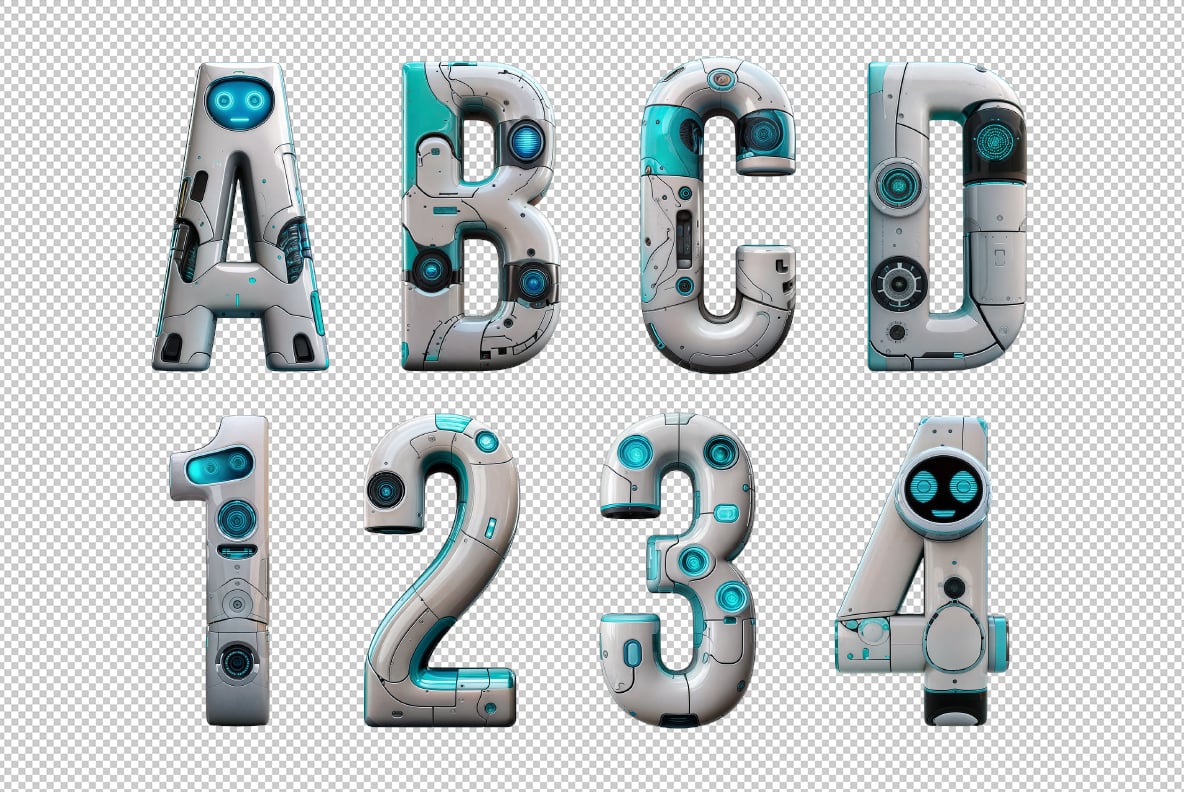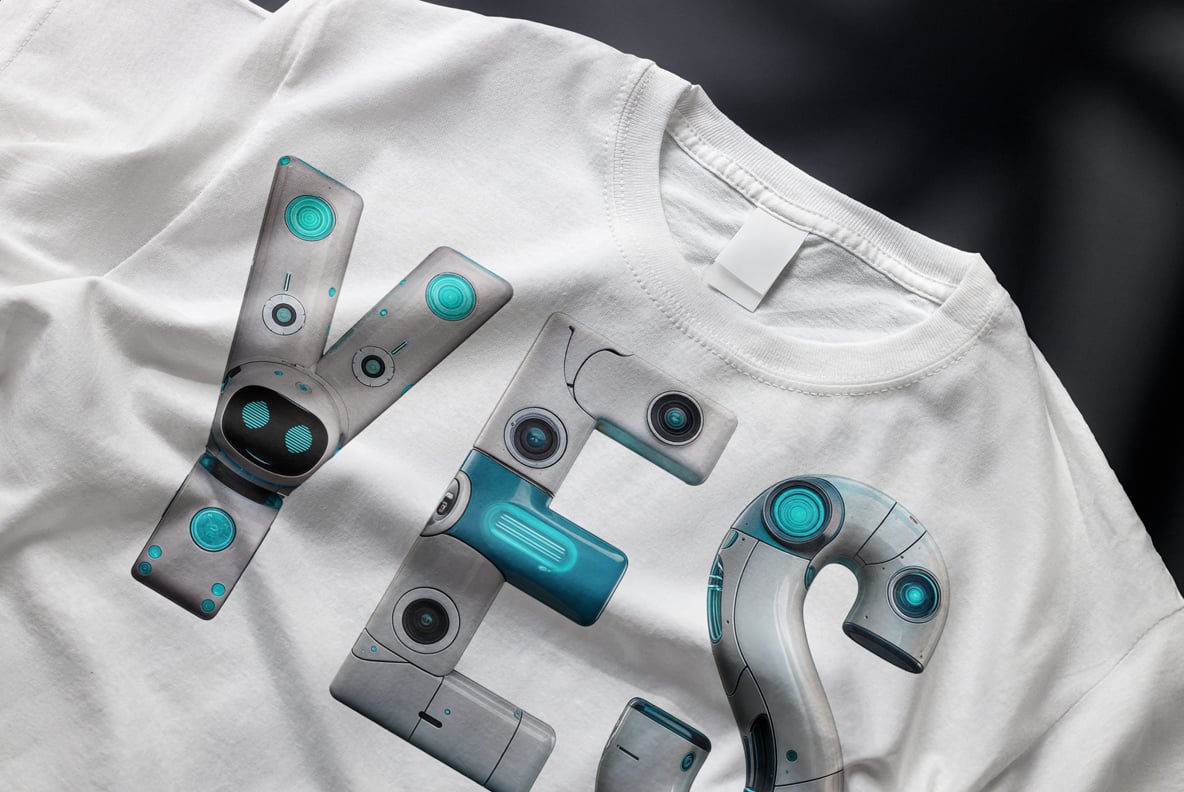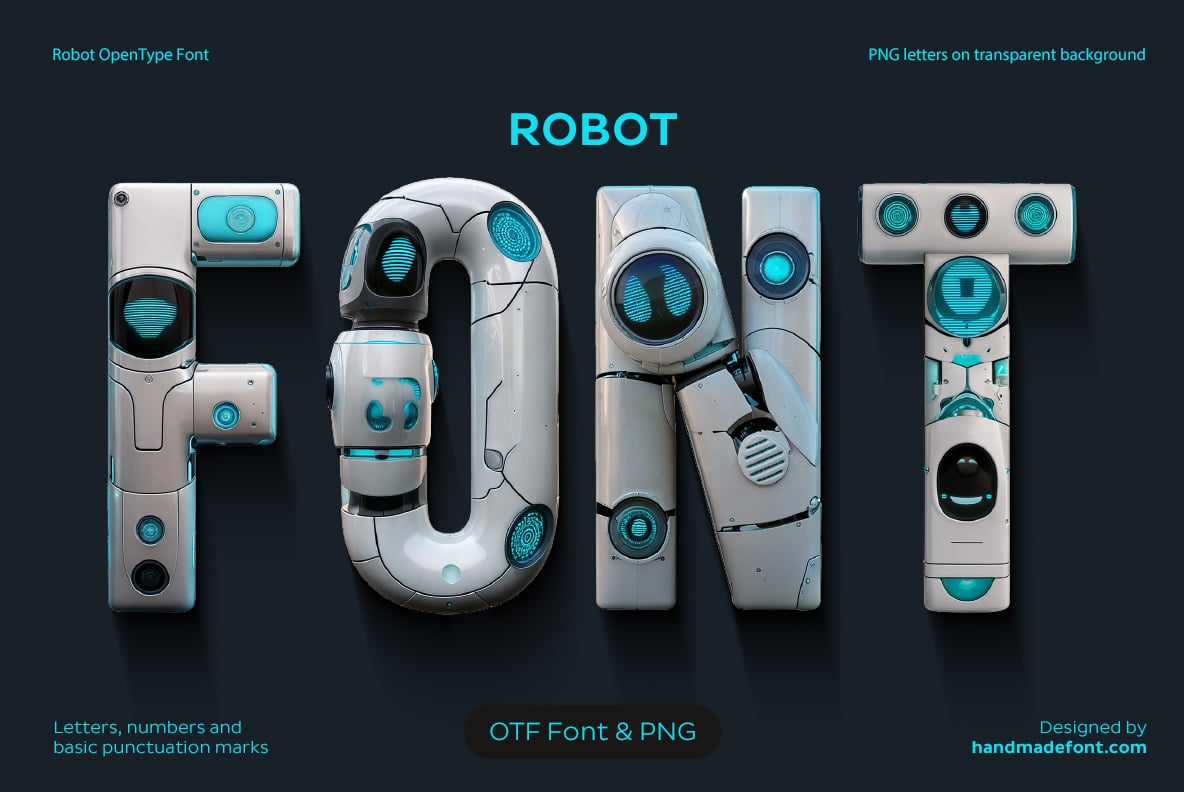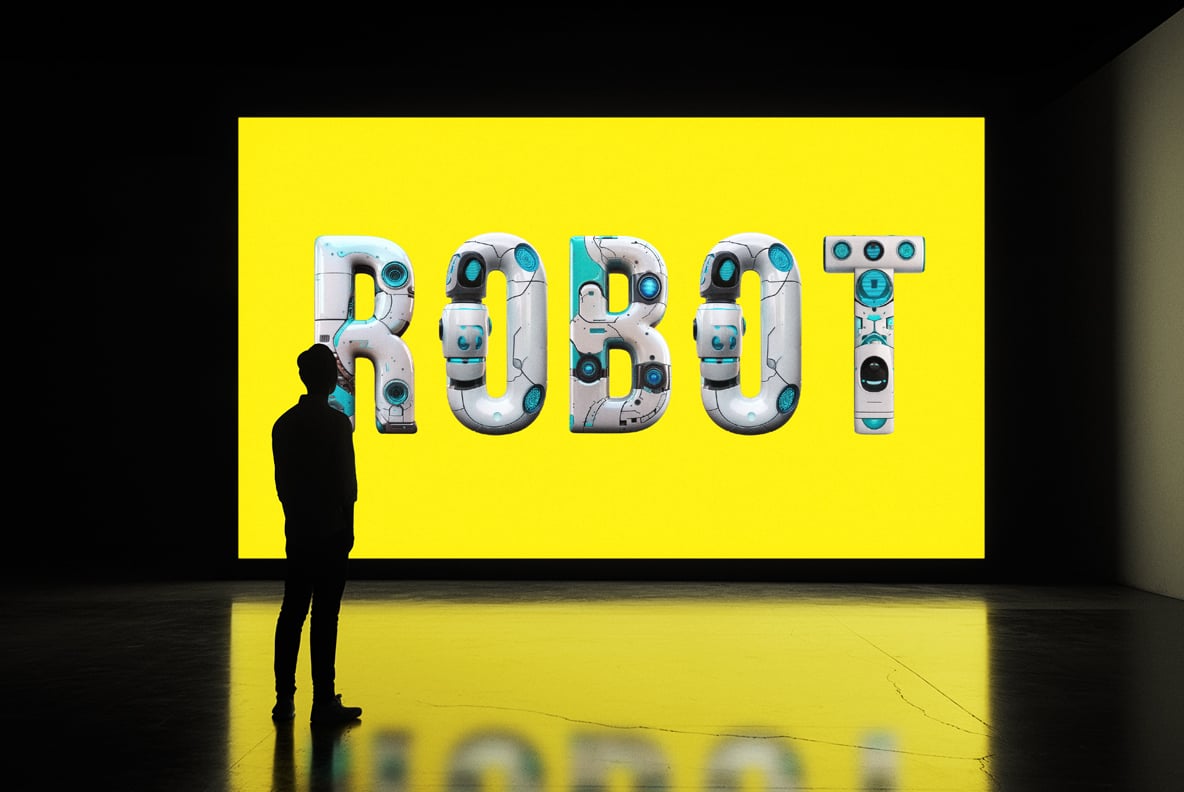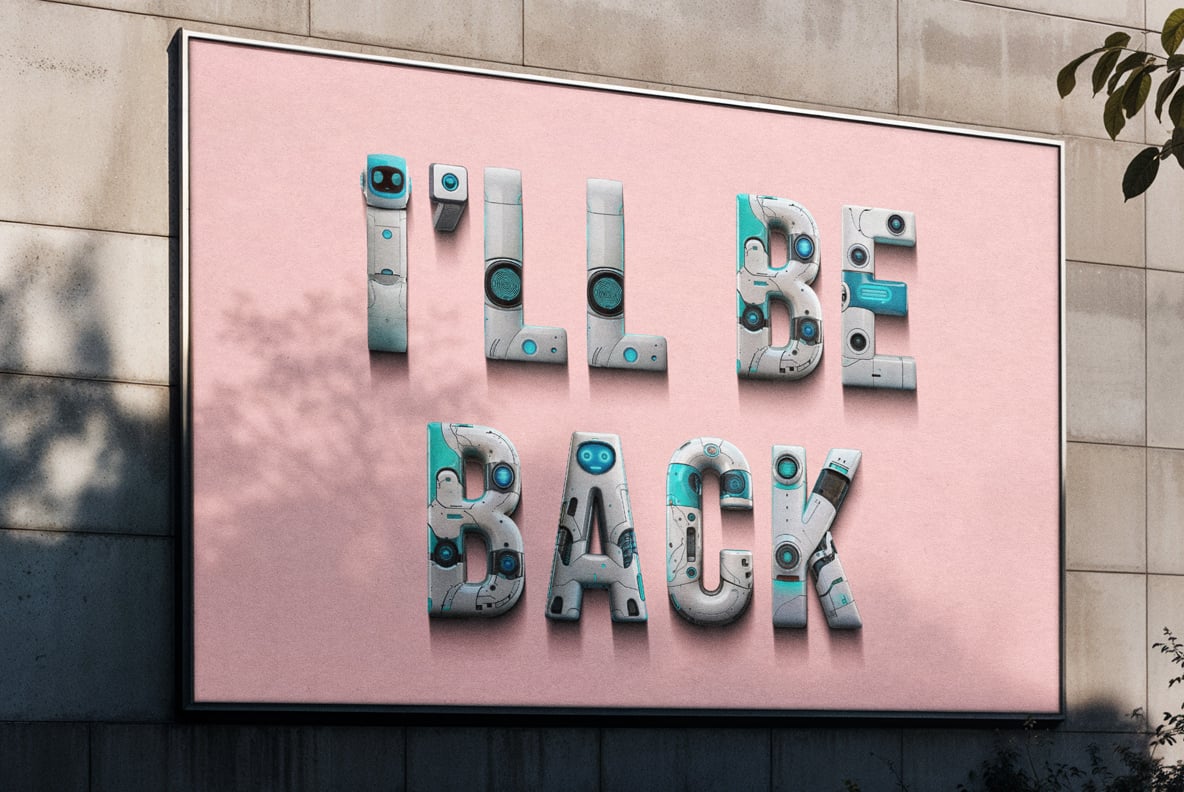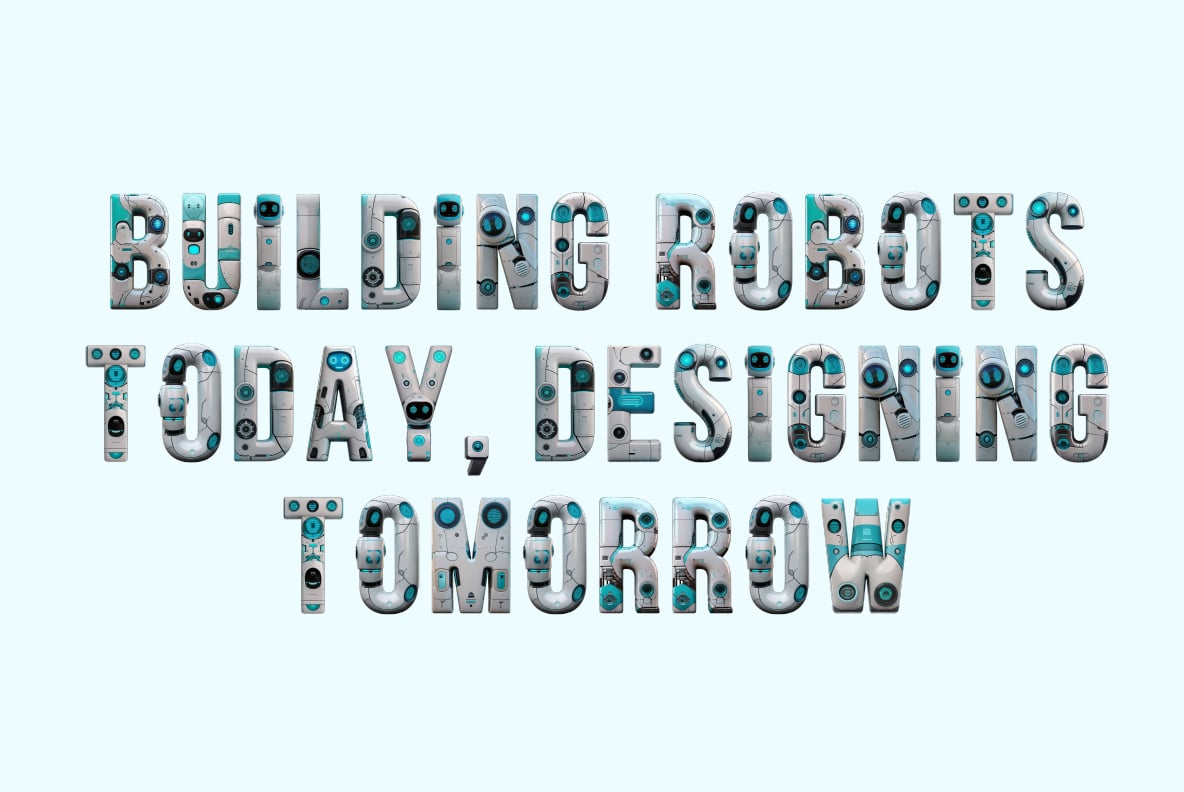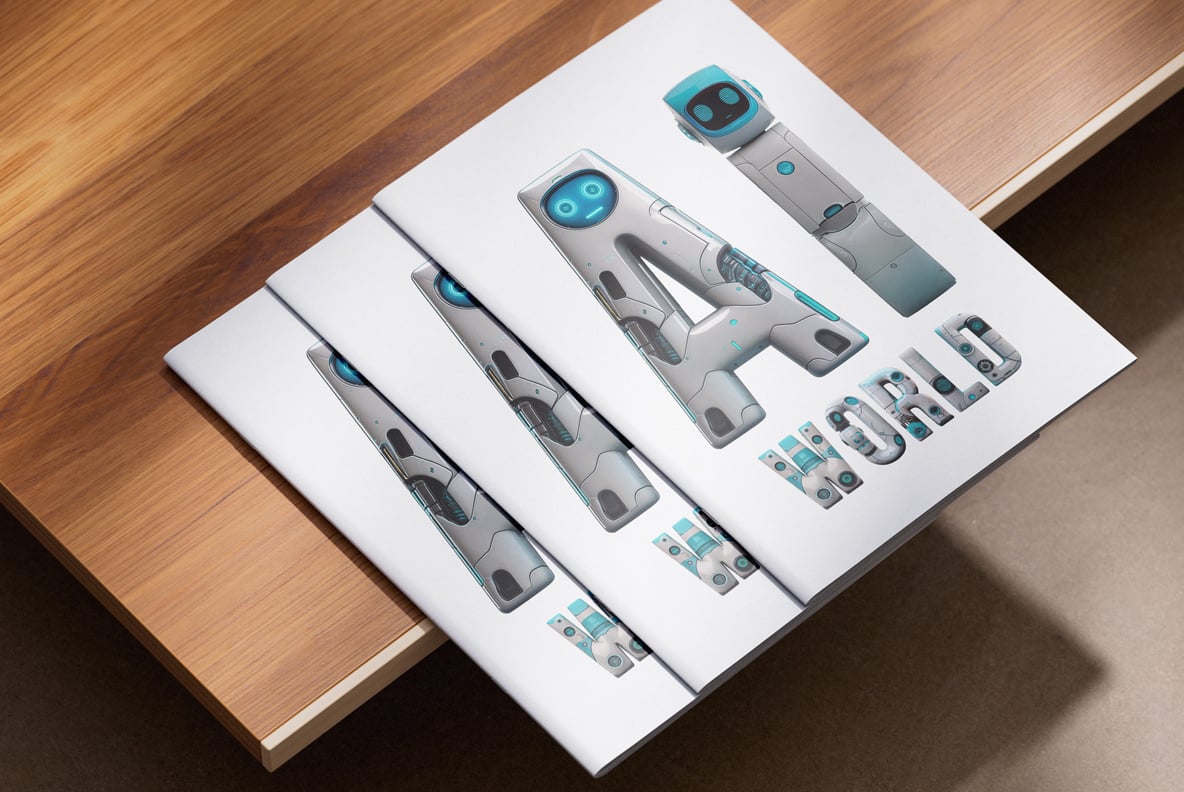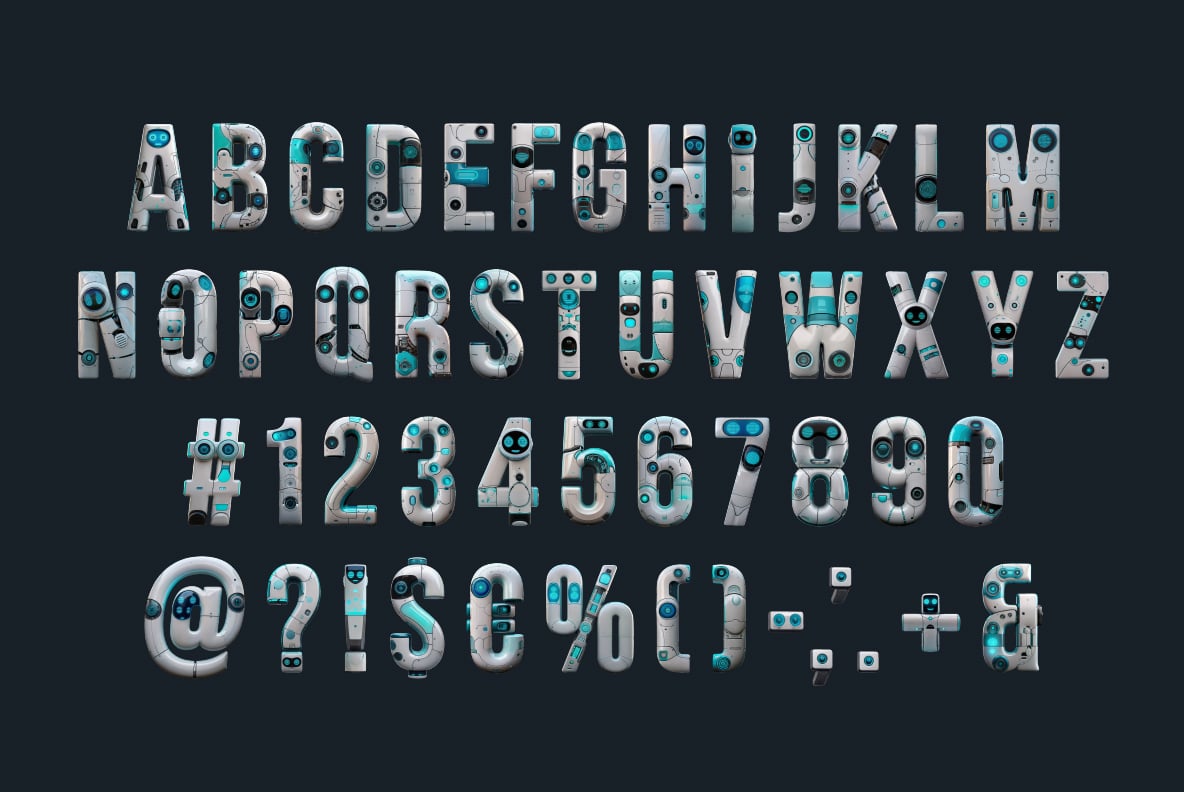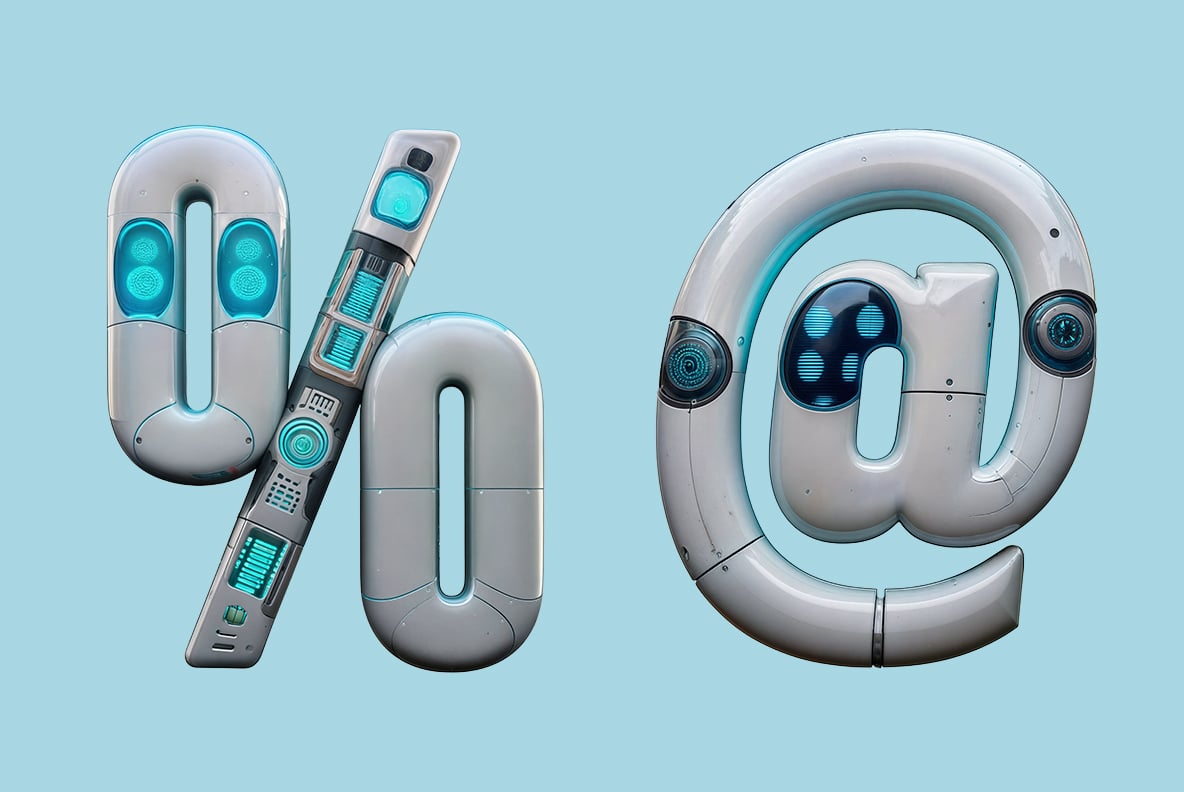
Robot Font
Robot meets typography in the most futuristic way possible — introducing Robot Font, where every letter is more than just a shape; it’s a mini android with a glowing AI soul. Imagine sleek metallic surfaces, circuits sparking with machine learning magic, and humanoid faces peeking from rounded tops — two glowing eyes, a subtle smile, pure robotic charm. This isn’t just a font; it’s robot lettering on a neural network rollercoaster. Clean, high-tech, and cyborg-cool — perfect for when your words need a dash of AI brilliance and a pinch of deep learning swagger!